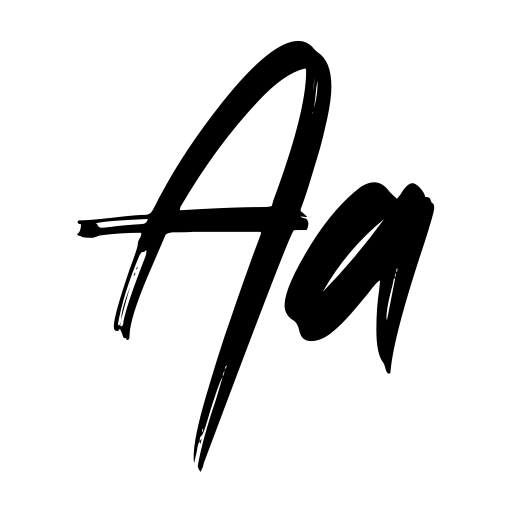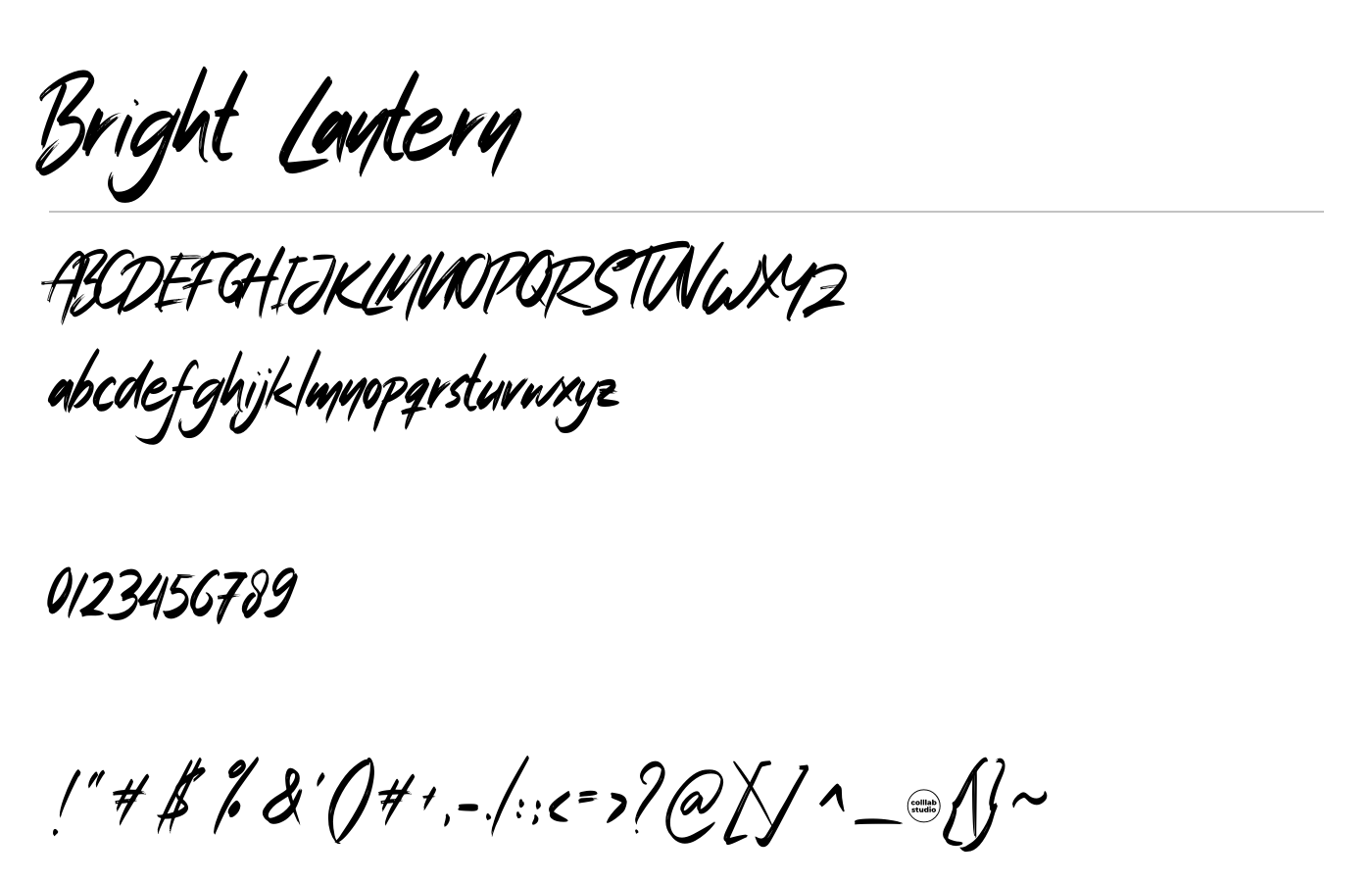
Bright Lantern is a lively, handwritten script font characterized by its energetic, brush-like strokes and casual, artistic flair. It has a dynamic and slightly rough texture that evokes creativity and a personal touch, making it ideal for expressive branding, modern invitations, and eye-catching headlines where a friendly yet bold personality is desired. This font works best in creative and informal designs looking to convey warmth and individuality.
Bright Lantern Font
About Bright Lantern Font